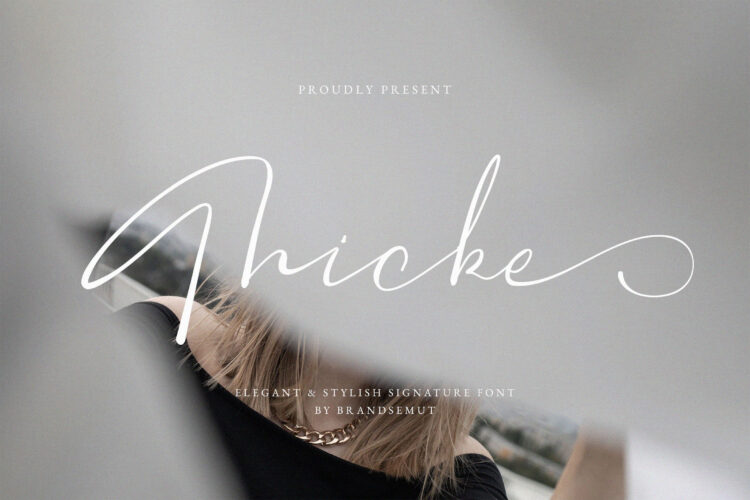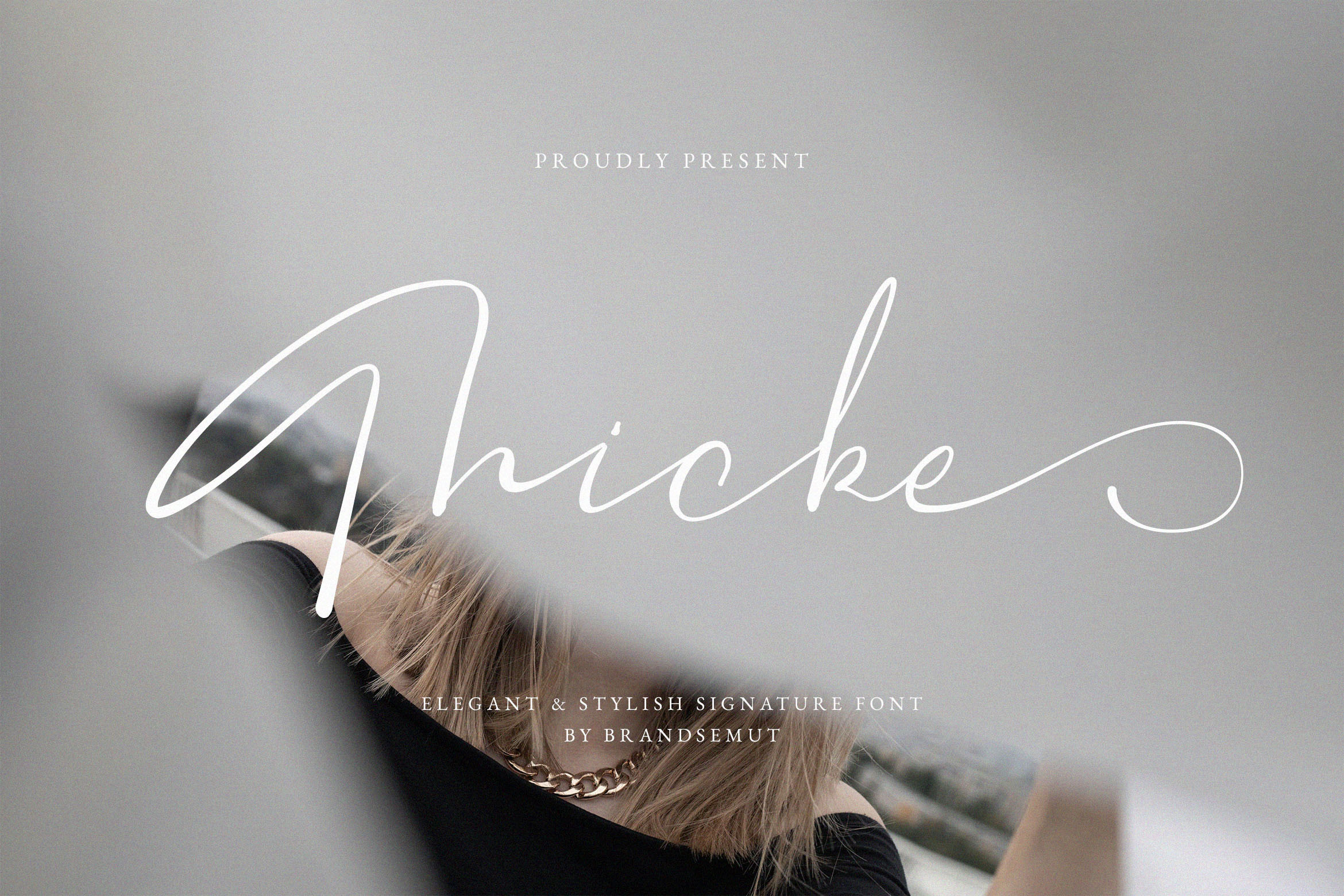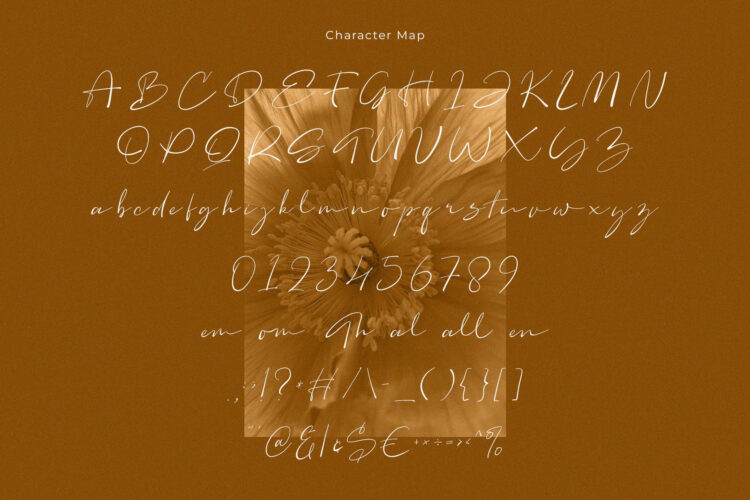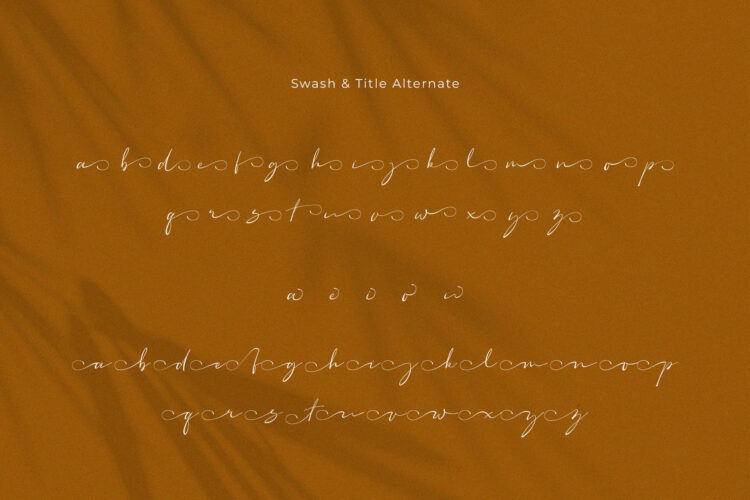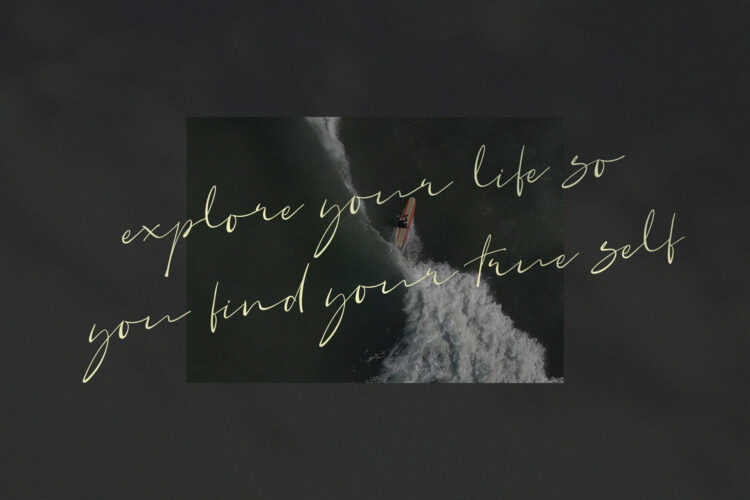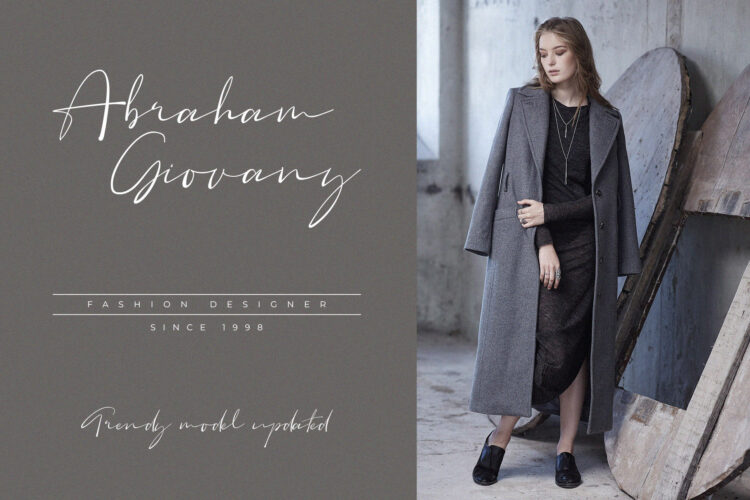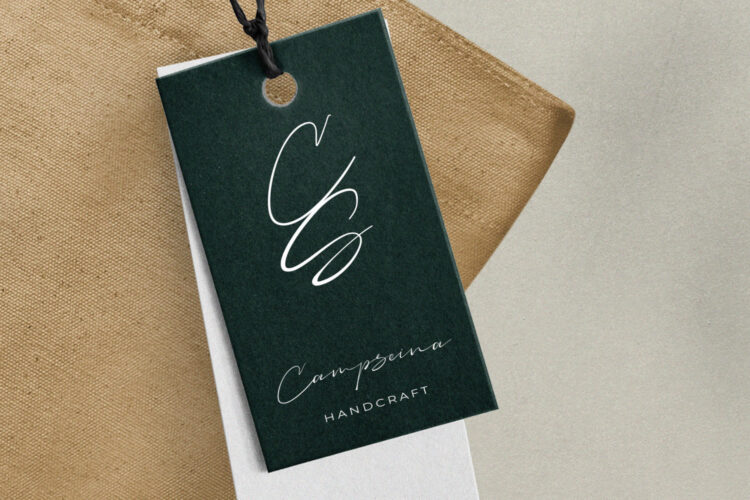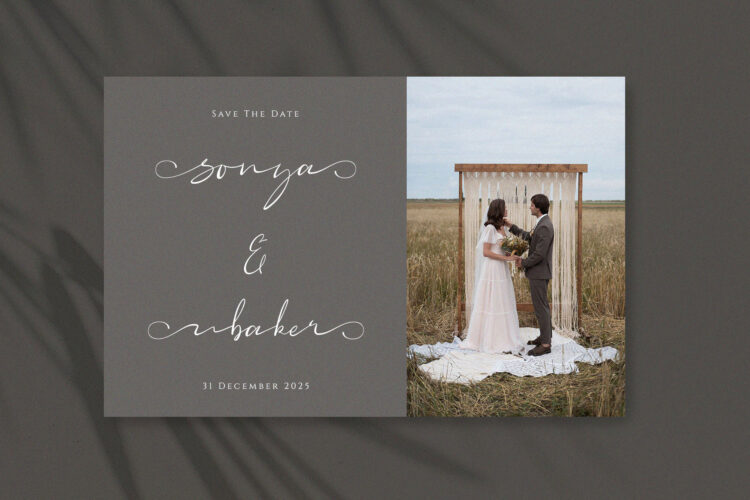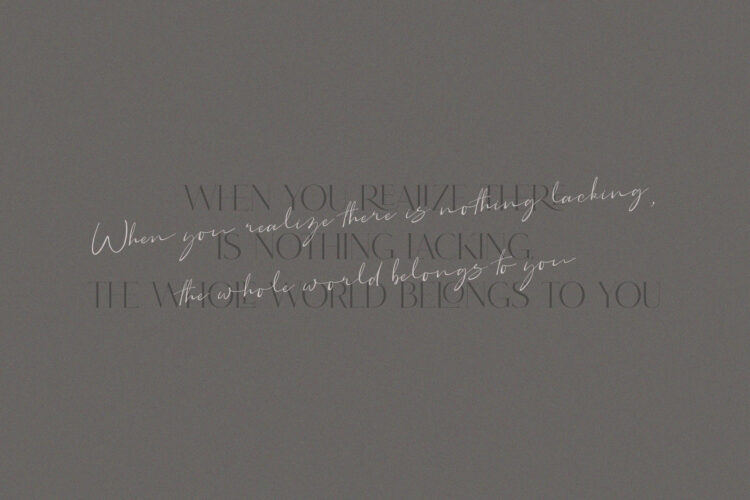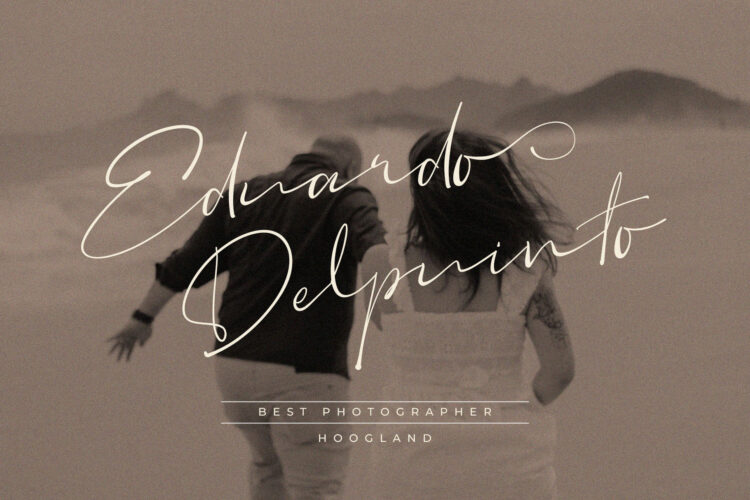
Introducing the new Thicke Signature Font is a elegant and stylish handwritten script, that you can use to perfect your design.
You will get full set of lowercase and uppercase letters, multilingual, numerals and punctuation.
Thicke – Elegant Handwritten Font